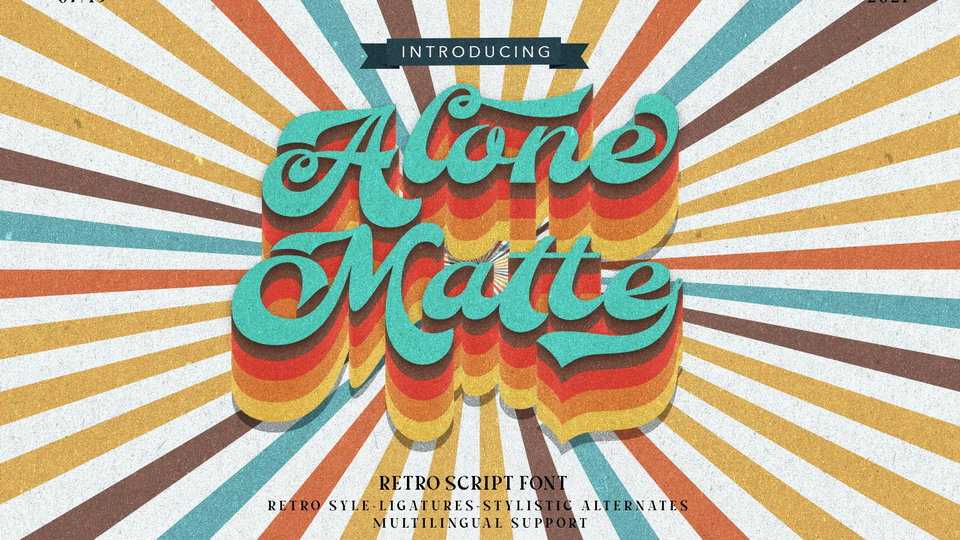
Download Alone Mate font, a bold hand lettered typeface, inspired by the design styles of the 70s. Alone Mate is a groovy, classy, not serious but has aesthetic and unique value.